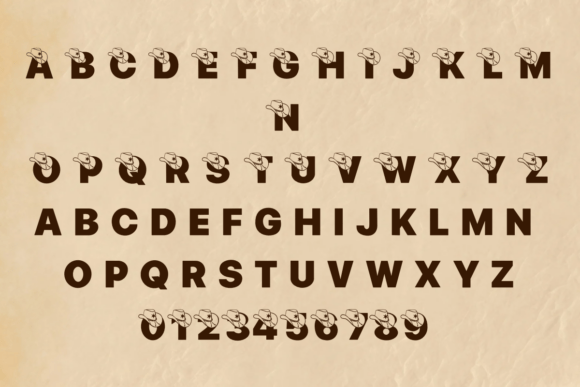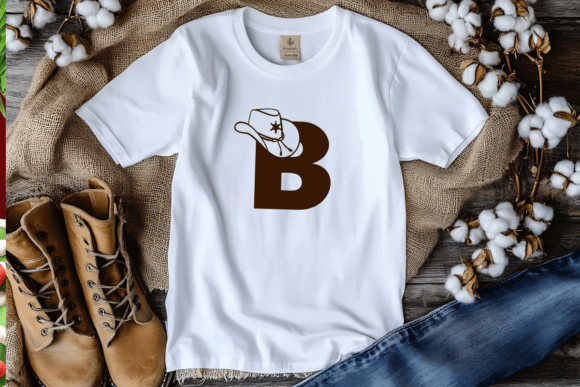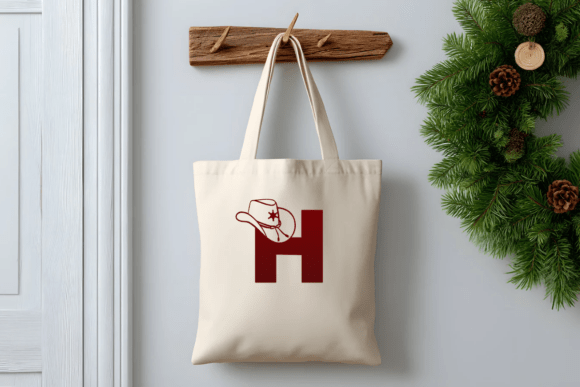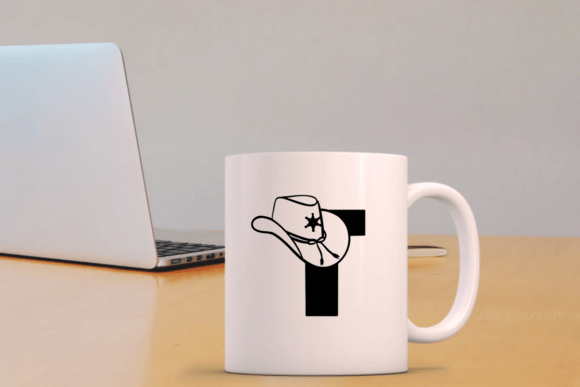
Cowboy Hat Vintage Font: Saddle Up for Wild West-Inspired Designs
Are you ready to add a touch of the Wild West to your creative projects? Look no further than the Cowboy Hat Vintage font, a bold and spirited decorative font that’s perfect for designers and crafters looking to capture the essence of cowboy culture and frontier charm.
A Unique and Playful Font
Cowboy Hat Vintage is a one-of-a-kind font that’s uniquely topped with a classic cowboy hat on each letter. This distinctive feature gives the font its character and flair, making it perfect for Western-themed posters, rodeo flyers, saloon signs, country music branding, vintage apparel, and rustic event invites.
Perfect for Western-Themed Designs
Whether you’re designing a poster for a rodeo event, a logo for a country music band, or a label for a vintage apparel brand, Cowboy Hat Vintage is the perfect font to add a touch of Western nostalgia to your project. The font’s playful yet rugged vibe captures the spirit of the Wild West, evoking images of cowboys, rodeos, and saloons.
Key Features of Cowboy Hat Vintage
- Unique lettering style: Each letter is topped with a classic cowboy hat, giving the font its distinctive character and flair.
- Bold and spirited: The font has a bold and spirited vibe that’s perfect for making a statement.
- Playful yet rugged: The font’s playful yet rugged vibe captures the essence of cowboy culture and frontier charm.
- Perfect for Western-themed designs: The font is perfect for Western-themed posters, rodeo flyers, saloon signs, country music branding, vintage apparel, and rustic event invites.
How to Use Cowboy Hat Vintage
Cowboy Hat Vintage can be used for a variety of design projects, including:
- Western-themed posters: Use Cowboy Hat Vintage to create eye-catching posters for rodeo events, Western-themed parties, or cowboy-themed gatherings.
- Rodeo flyers: Add a touch of the Wild West to your rodeo flyers with Cowboy Hat Vintage.
- Saloon signs: Create authentic-looking saloon signs with Cowboy Hat Vintage.
- Country music branding: Use Cowboy Hat Vintage to create logos and branding materials for country music bands or artists.
- Vintage apparel: Add a touch of Western nostalgia to your vintage apparel designs with Cowboy Hat Vintage.
- Rustic event invites: Use Cowboy Hat Vintage to create rustic and charming event invites for weddings, parties, or gatherings.
Tips for Using Cowboy Hat Vintage
Here are some tips for getting the most out of Cowboy Hat Vintage:
- Use it sparingly: Cowboy Hat Vintage is a bold font, so use it sparingly to make a statement.
- Pair it with complementary fonts: Pair Cowboy Hat Vintage with complementary fonts to create a unique and eye-catching design.
- Experiment with colors: Experiment with different colors and textures to add depth and interest to your design.
Cowboy Hat Vintage is a bold and spirited decorative font that’s perfect for designers and crafters looking to add a touch of the Wild West to their creative projects. With its unique lettering style, playful yet rugged vibe, and versatility, Cowboy Hat Vintage is the perfect font for Western-themed designs. Saddle up and get creative with Cowboy Hat Vintage!